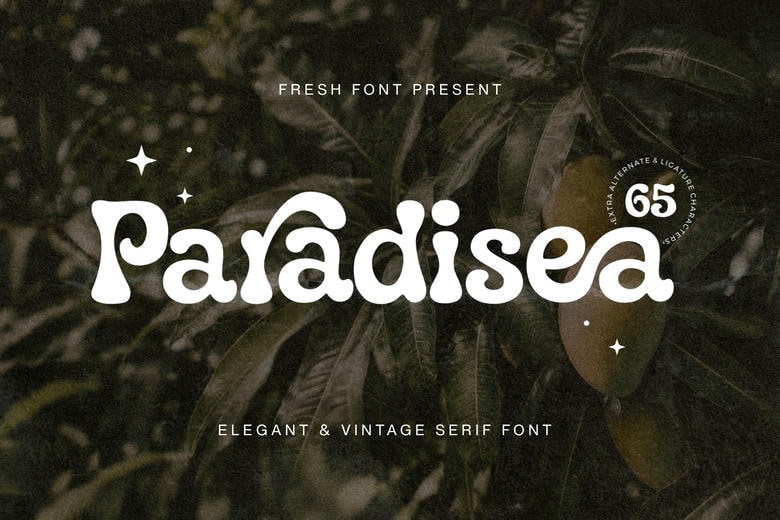
Paradisea Font
Paradisea is a serif font that brings together vintage charm and modern style. It works well for high street fashion labels, vintage diners, cosmetic brands, and editorial campaigns.
Paradisea Serif Font